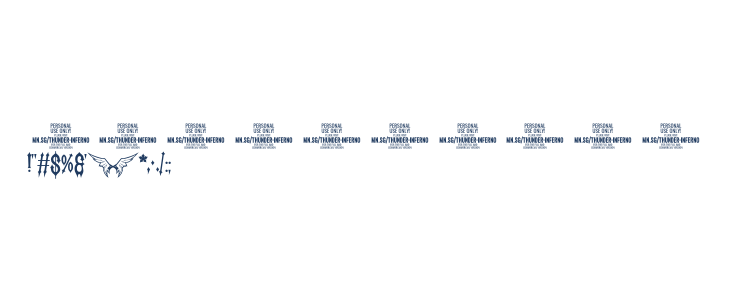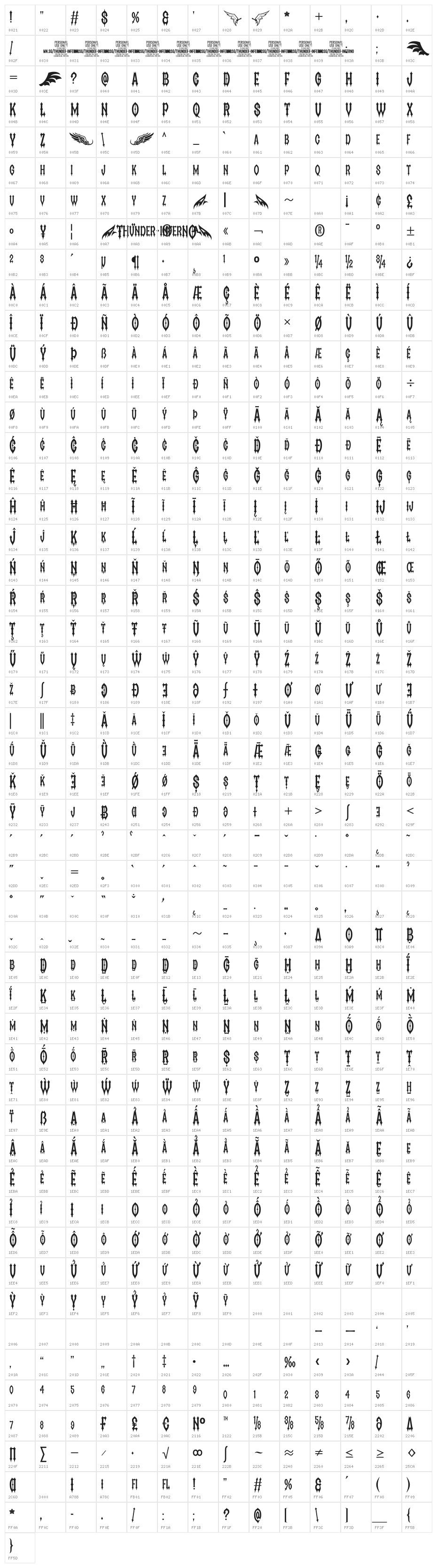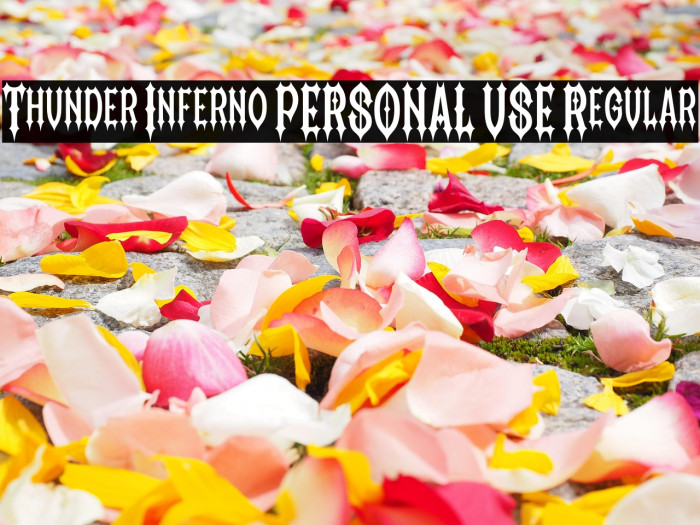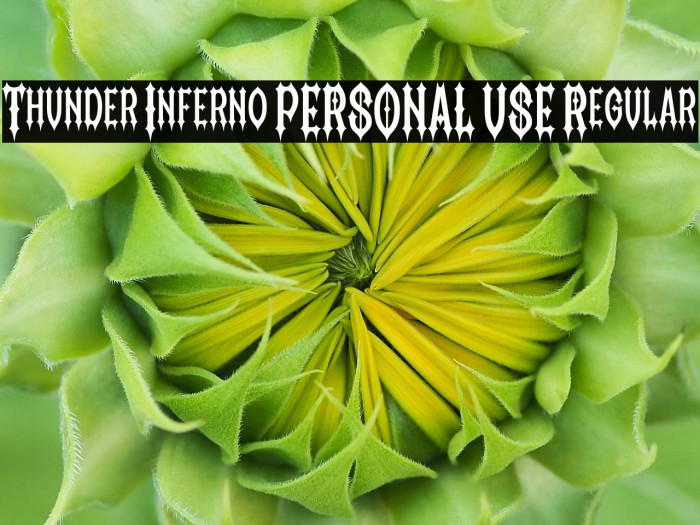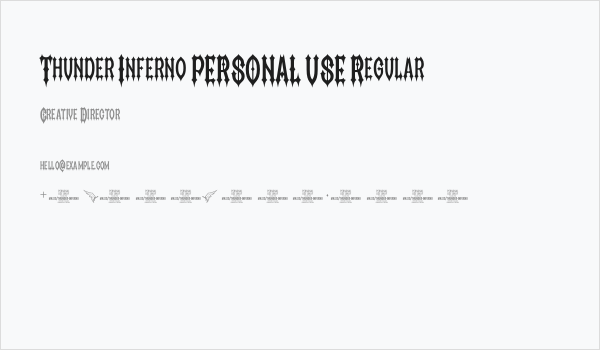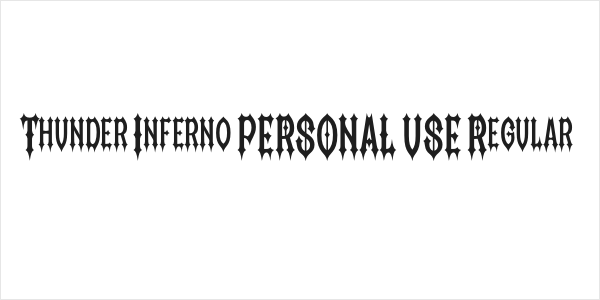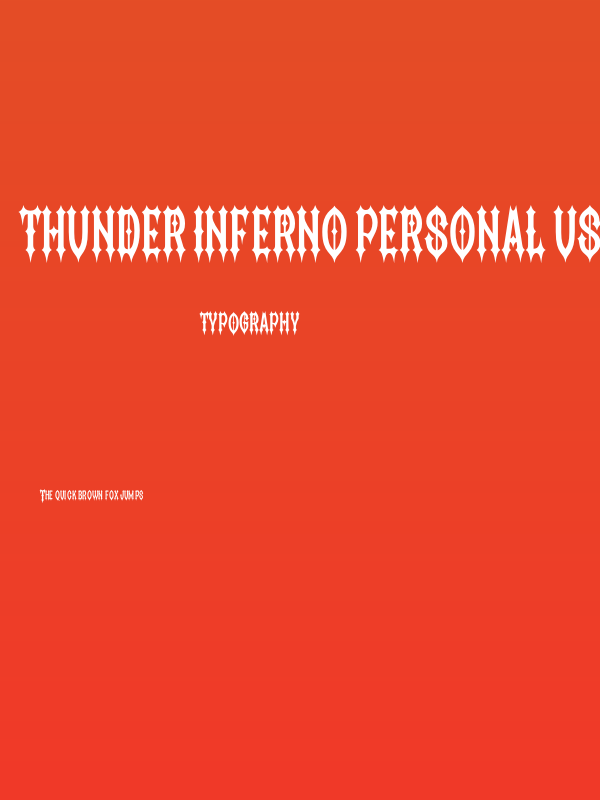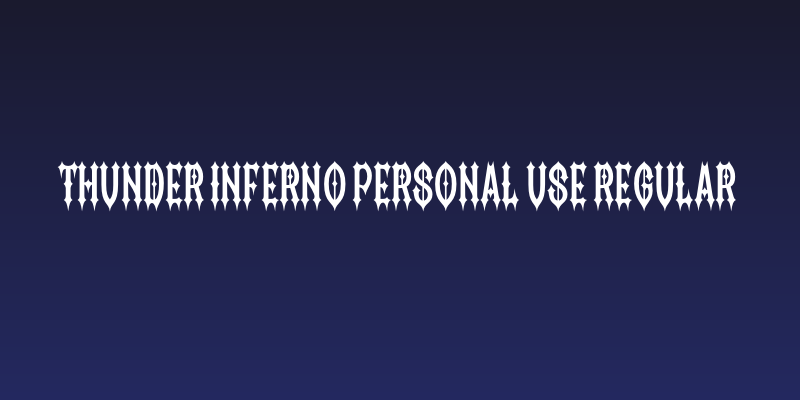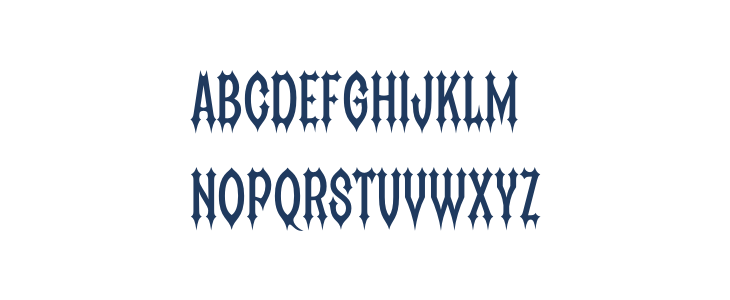
Thunder Inferno PERSONAL USE Regular Font
Thunder Inferno PERSONAL USE Regular Description
This font features a bold, dramatic style with sharp, pointed serifs and a gothic influence. The uppercase letters are particularly striking, with elongated verticals and intricate detailing that give it a fierce, intense appearance. The lowercase letters maintain the same sharpness, ensuring consistency throughout the typeface. The numbers and special characters are equally bold, with unique designs that complement the overall aesthetic. This font is perfect for making a statement, with its high contrast and decorative elements that draw attention.
| Overall Style | Gothic, Decorative |
| Proposed Projects | Ideal for use in posters, album covers, branding for edgy or alternative products, and any project requiring a dramatic, eye-catching typeface. |